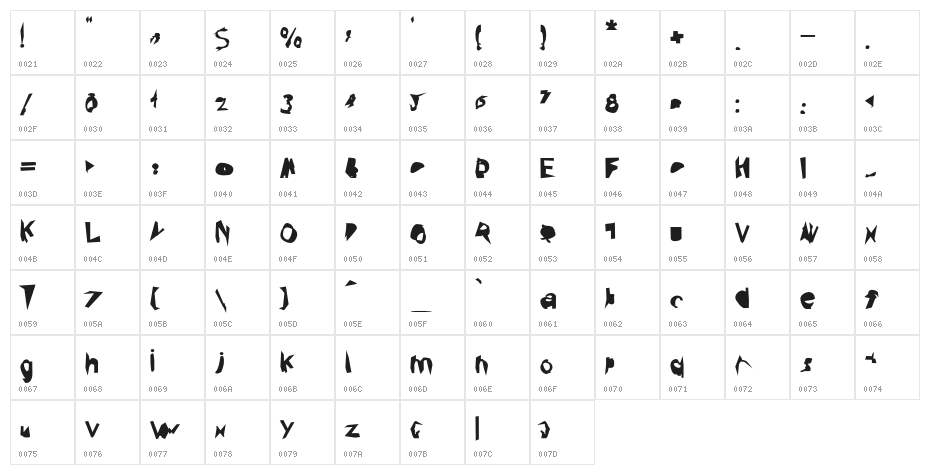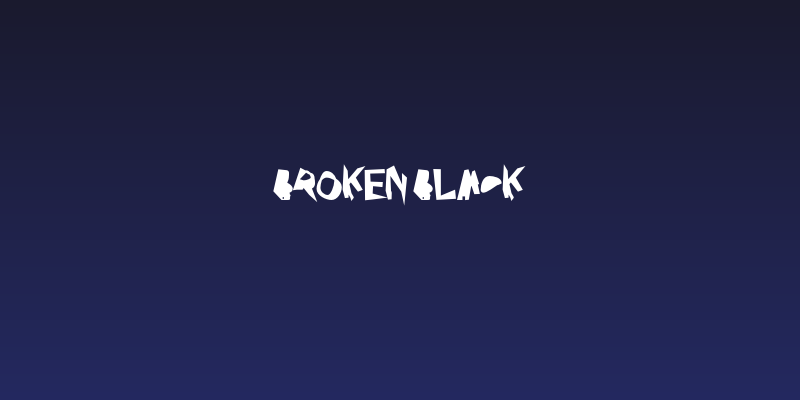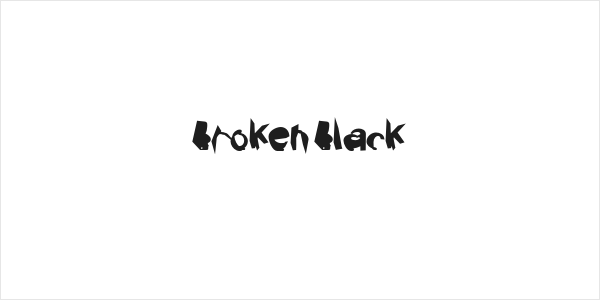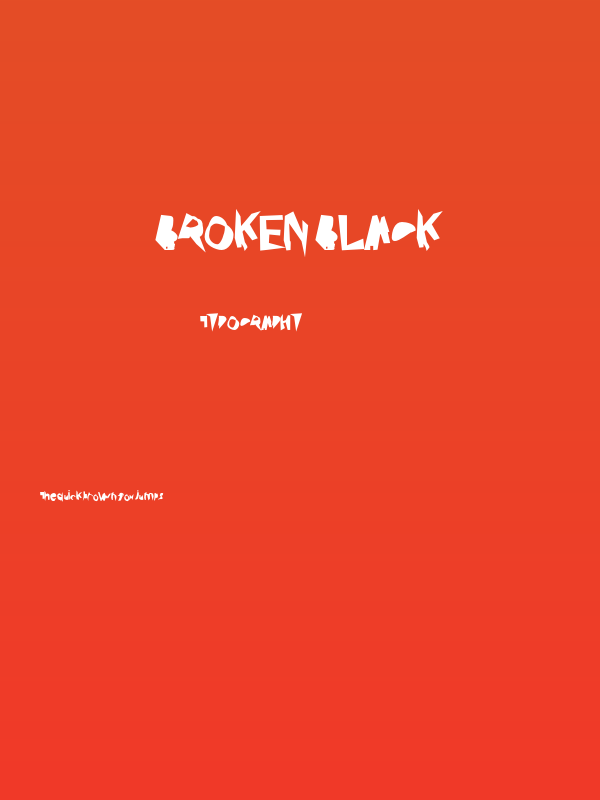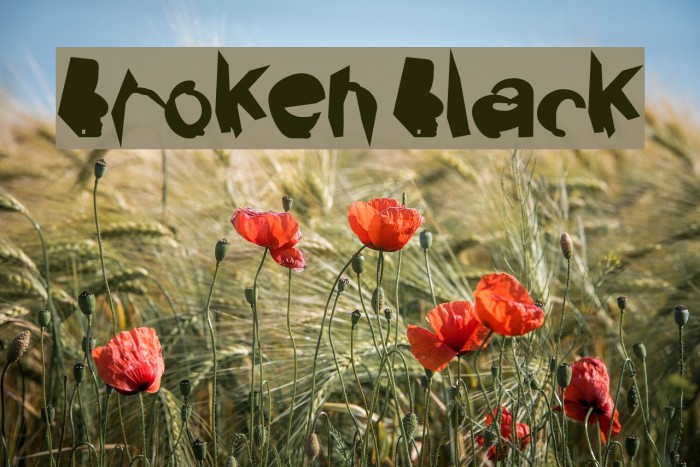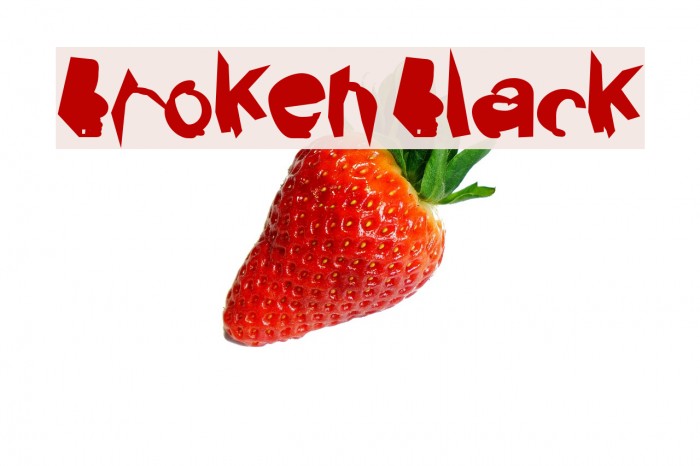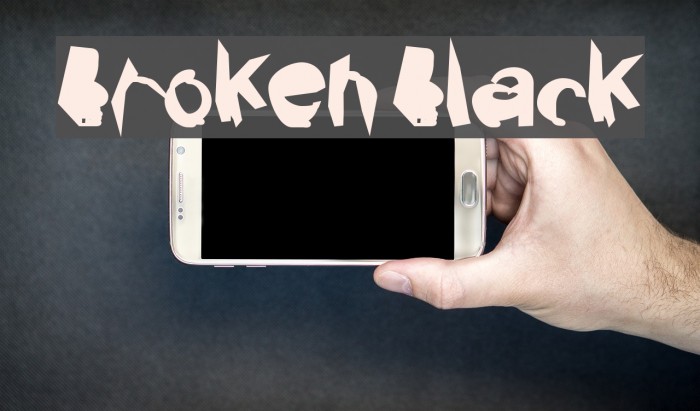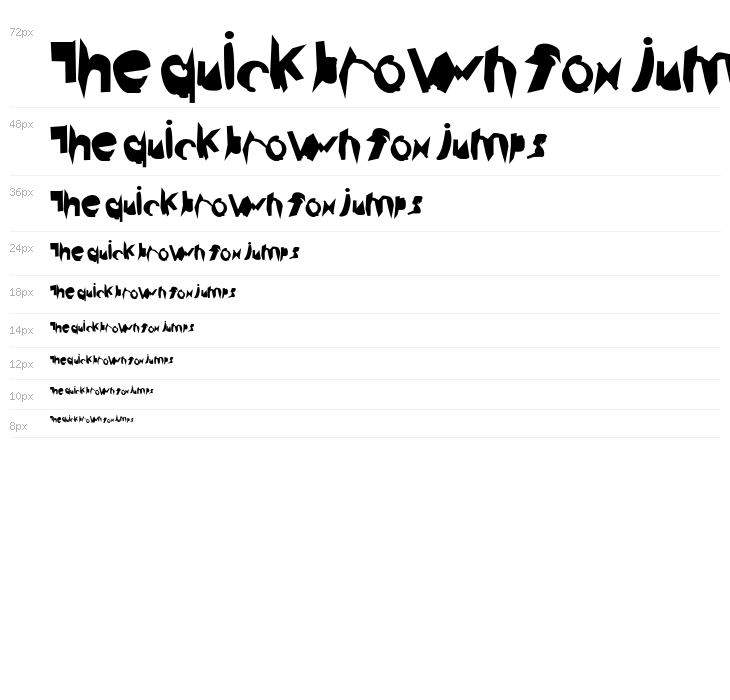
Broken Black Font
Broken Black Description
This font features a highly irregular and jagged design, characterized by sharp angles and uneven strokes. The letters appear as if they have been shattered or fragmented, giving them a dynamic and edgy appearance. The uppercase and lowercase letters maintain a consistent style, with each character exhibiting unique distortions that contribute to the overall chaotic aesthetic. Numbers and special characters follow the same broken pattern, enhancing the font's cohesive yet unpredictable look. This font is visually striking and commands attention, making it suitable for projects that require a bold and unconventional typeface.
| Proposed Projects | Ideal for album covers, posters, graffiti art, and any project needing a bold, unconventional typeface. |